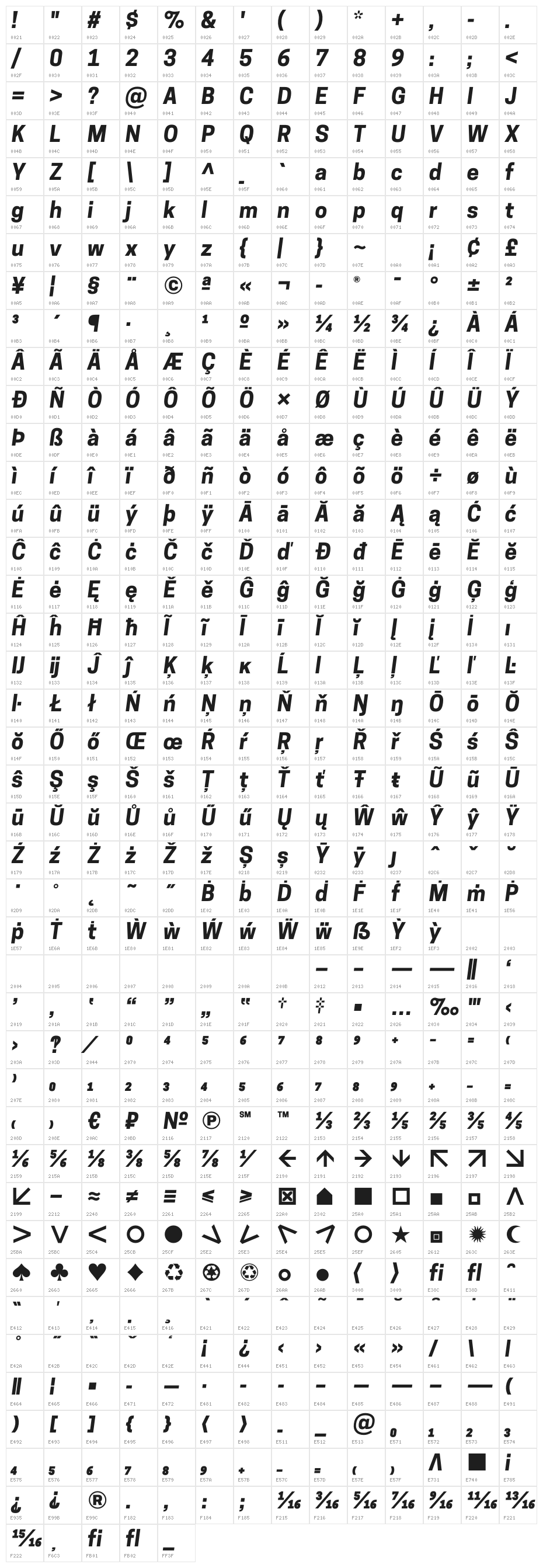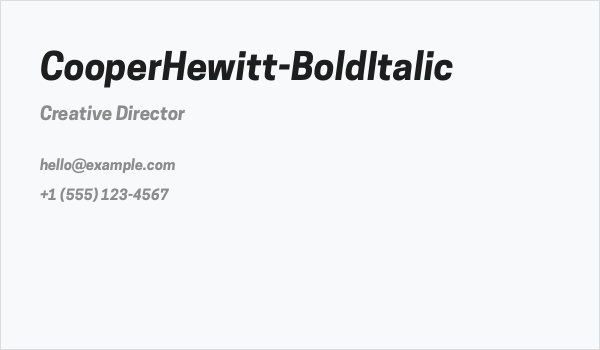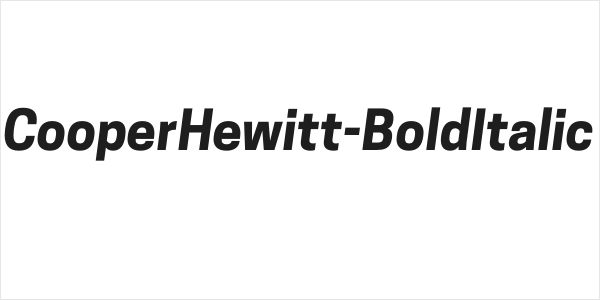
CooperHewitt-BoldItalic Font
CooperHewitt-BoldItalic Description
This font features a bold and italicized style, offering a modern and dynamic appearance. The characters are well-defined with a slight slant, adding a sense of movement and energy. The uppercase and lowercase letters maintain a consistent weight, providing a cohesive look across text. The numerals are clear and easily distinguishable, making them suitable for various applications. Special characters are included, enhancing the font's versatility. The overall design is sleek and contemporary, making it ideal for projects that require a strong visual impact.
| Use Case | Headlines, Logos, Advertising |
| Proposed Projects | Ideal for branding, advertising, headlines, and digital media where a bold statement is needed. |